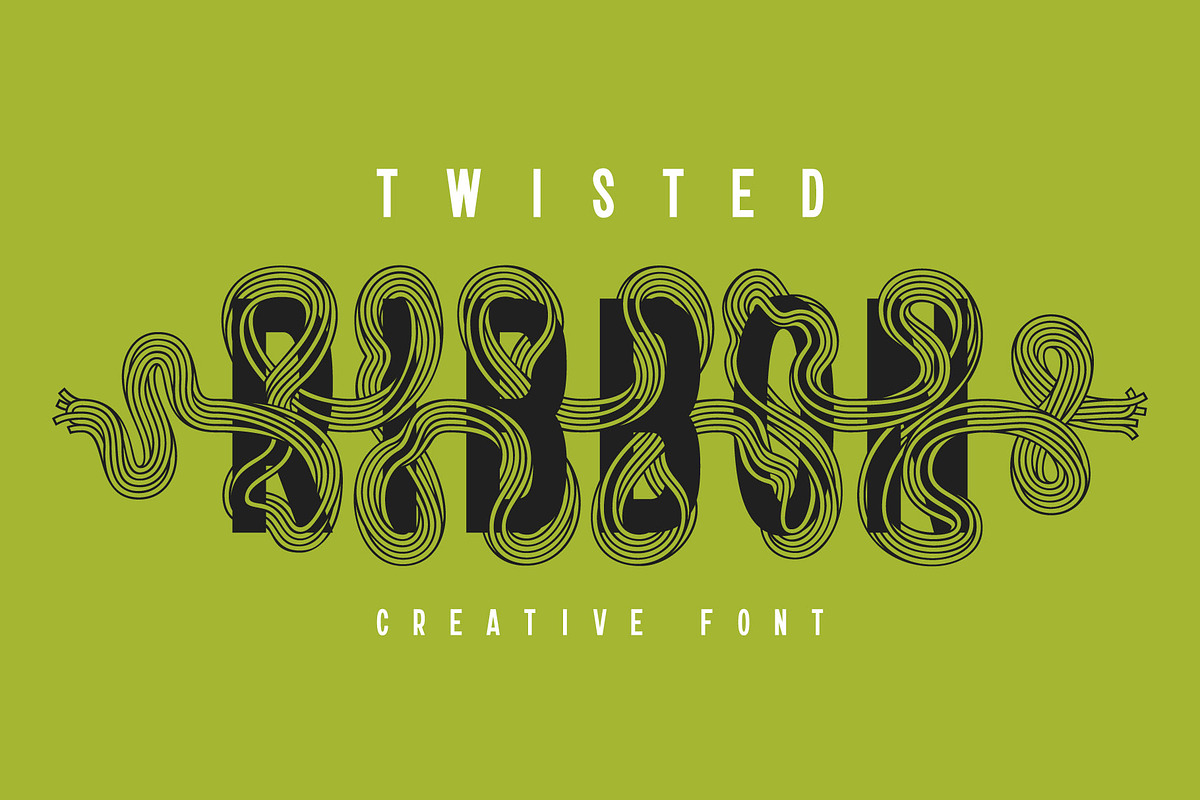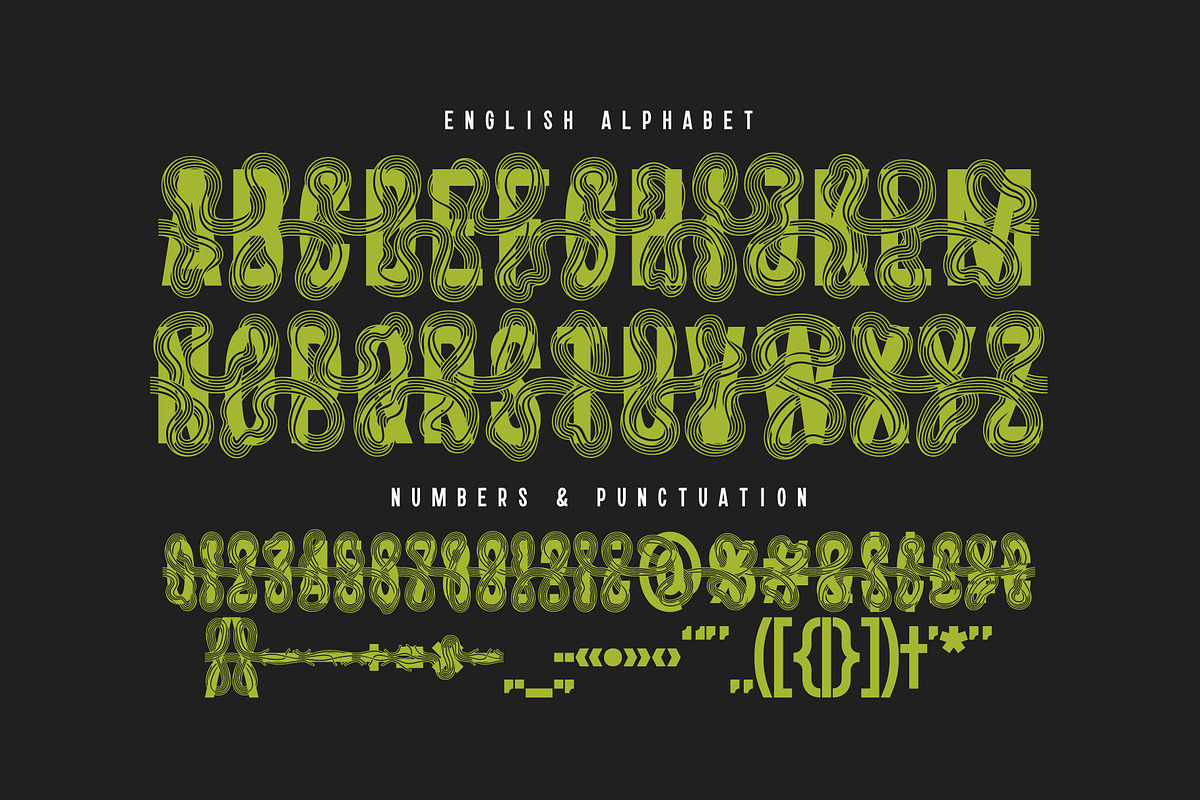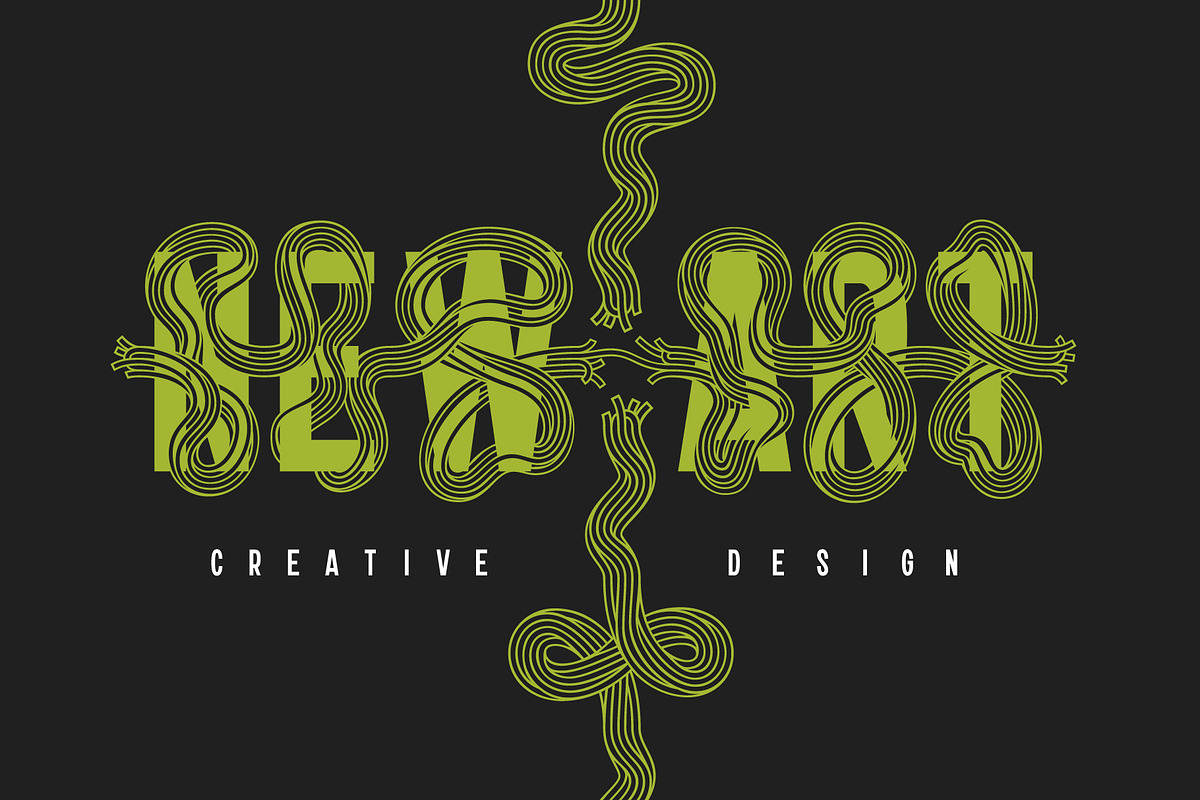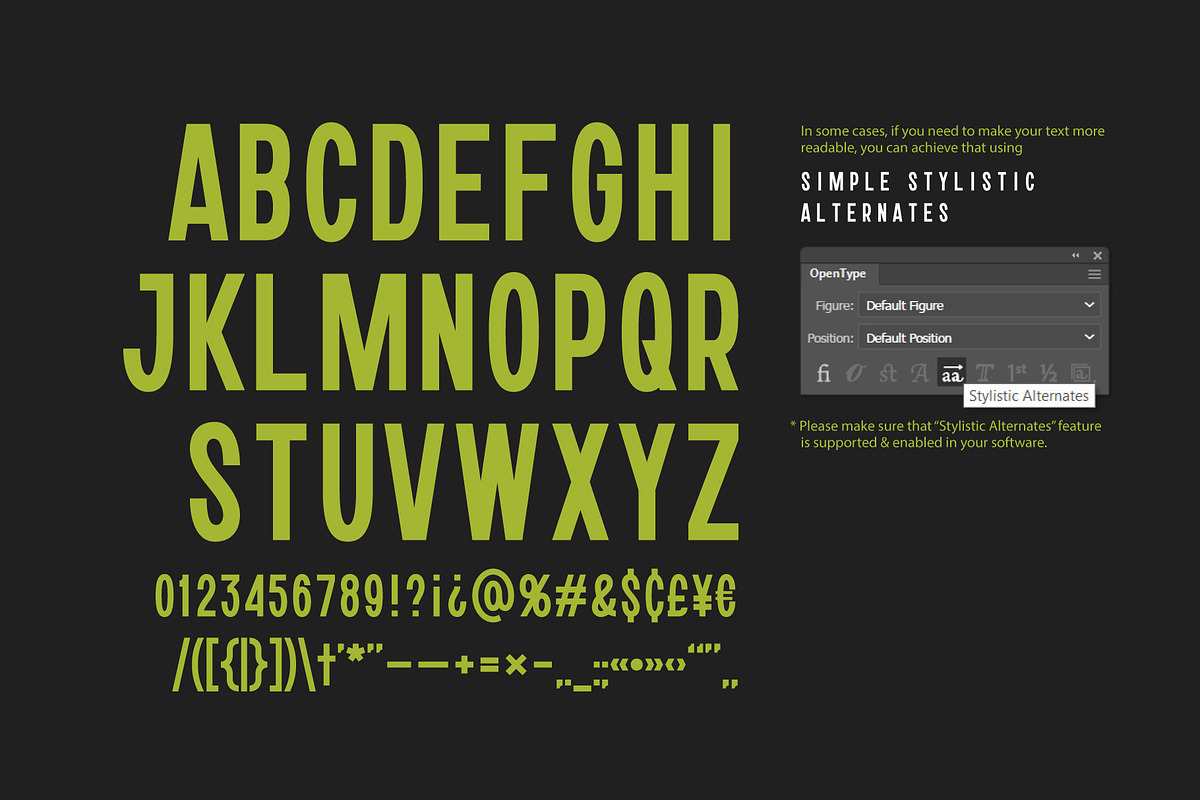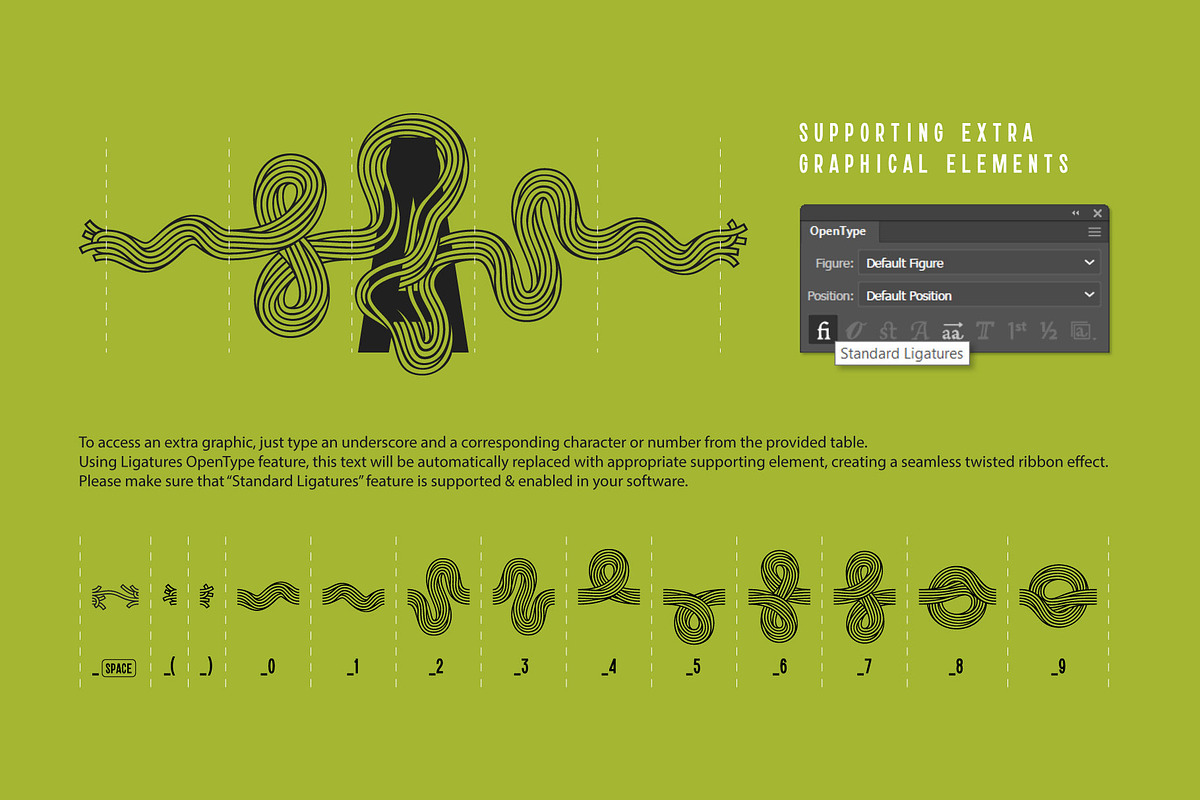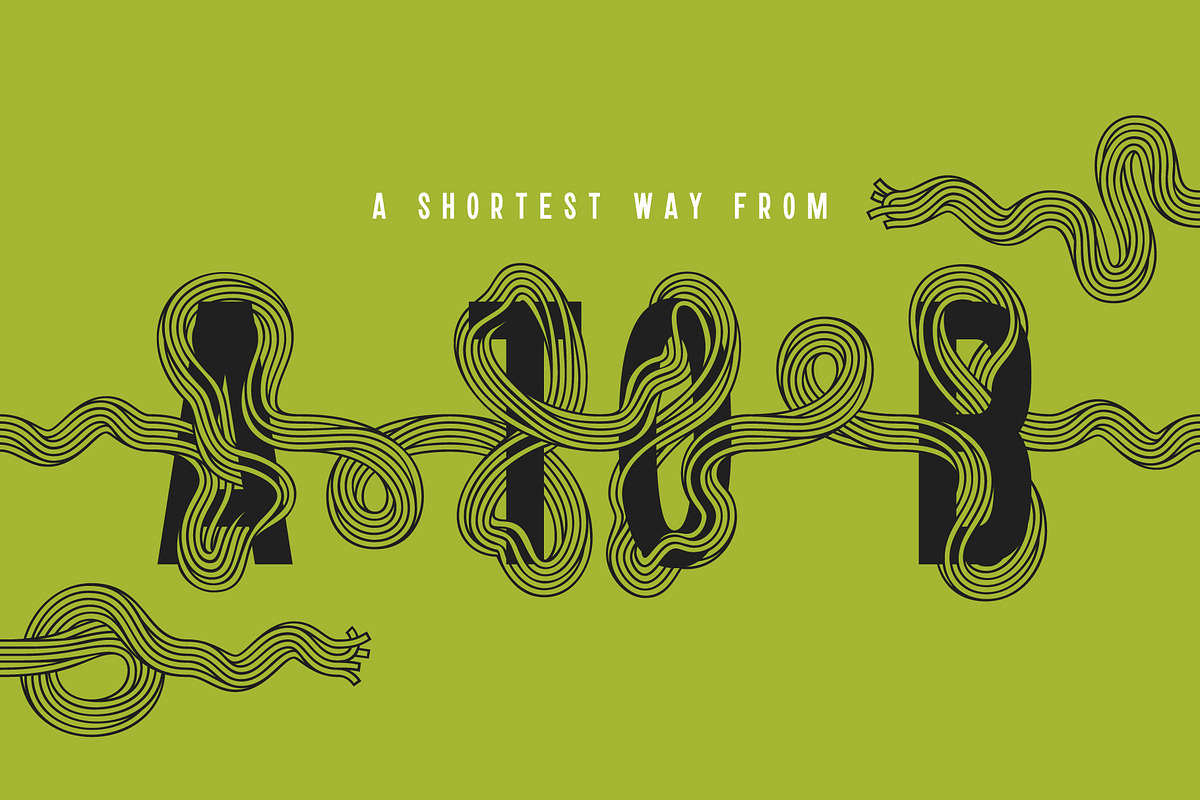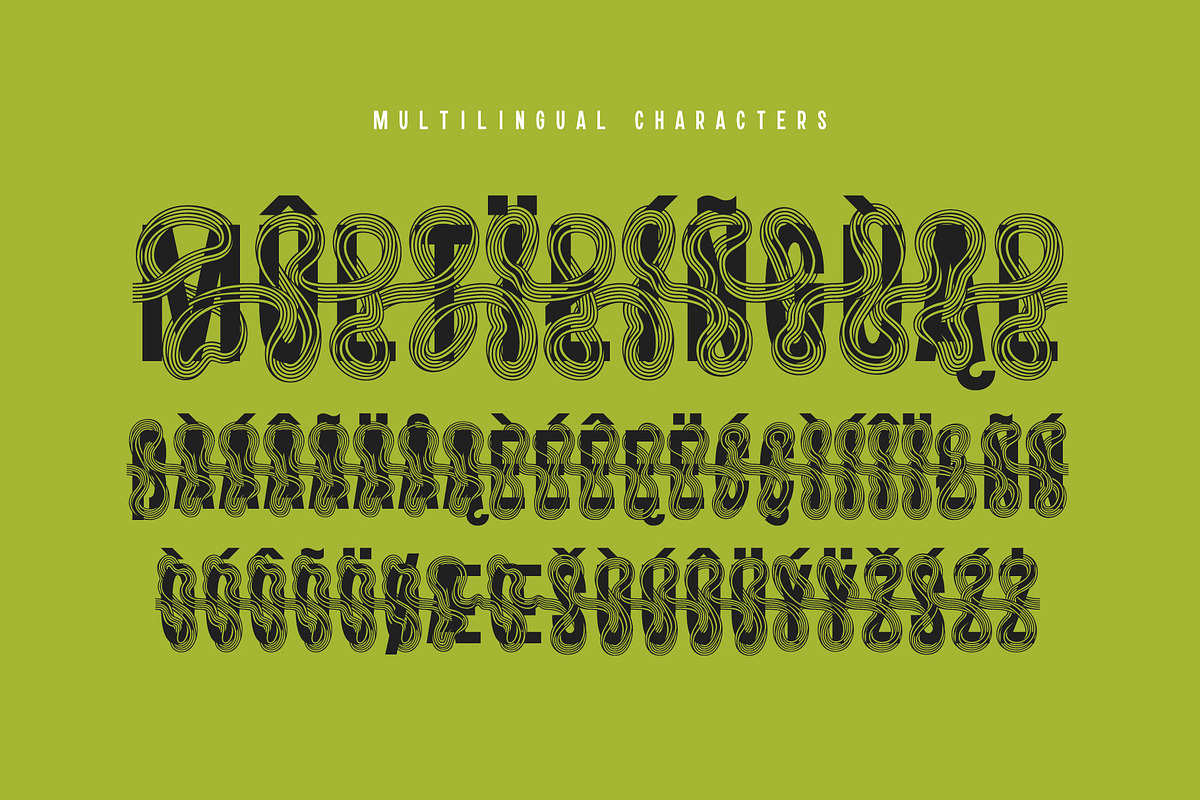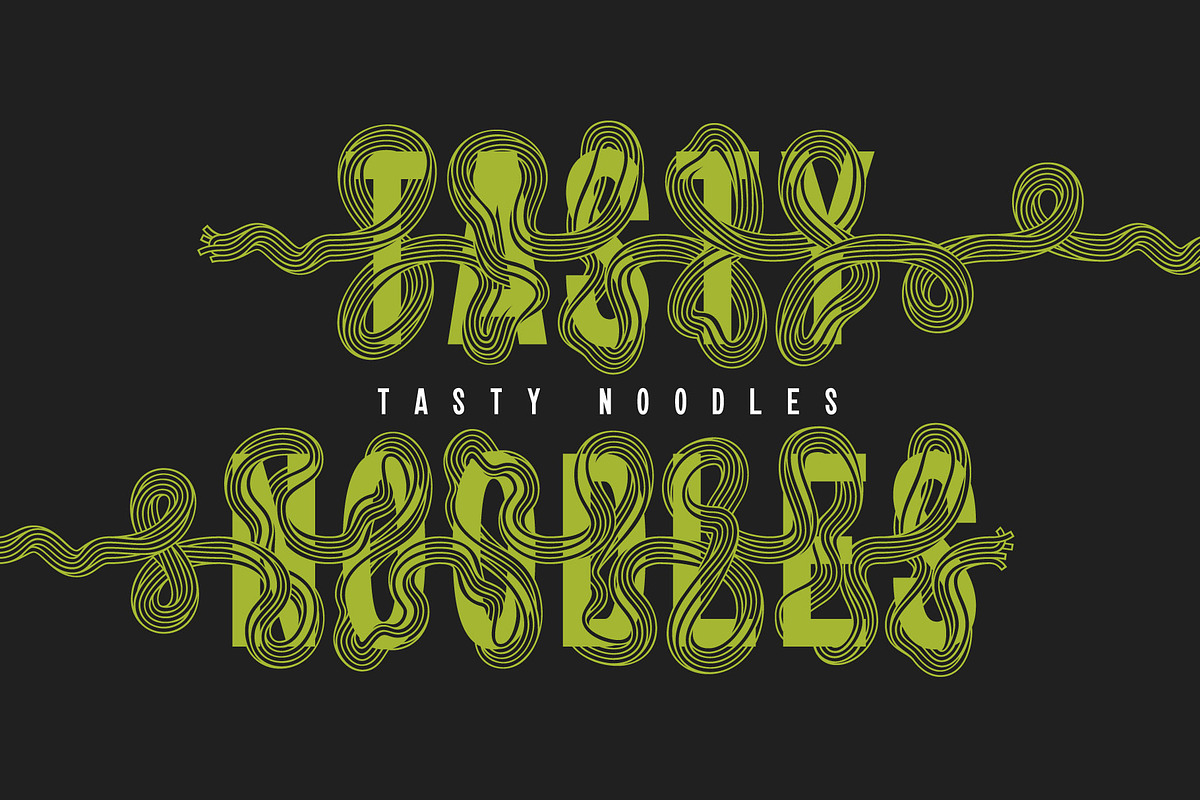
Twisted Ribbon — Creative Font
Hello! Presenting a creative font set — Twisted Ribbon. It's a vector decorative typeface with curved lines that are woven around the letters. The shape of the lines is made so that it flows seamlessly from one letter to another.
To achieve an interesting effect, extra glyphs are added to this font, such as lines end or additional extension of a ribbon. To access an extra graphic, just type an underscore and a corresponding character from the provided table. Using Ligatures OpenType feature, this text will be automatically replaced with appropriate supporting elements, creating a seamless twisted ribbon effect (please make sure that the Standard Ligatures feature is supported & enabled in your software).
Also, there are simple characters without a ribbon included in this font for most of the glyphs. Just enable the Stylistic Alternates OpenType feature to access them.